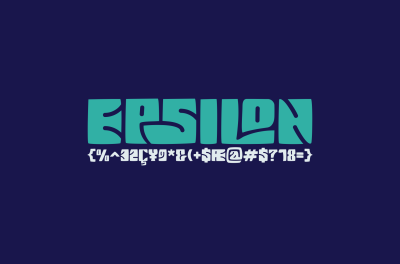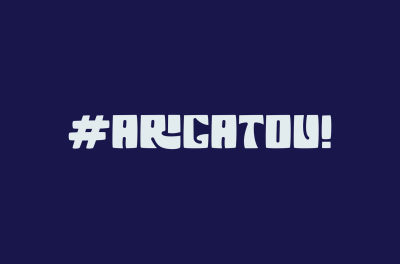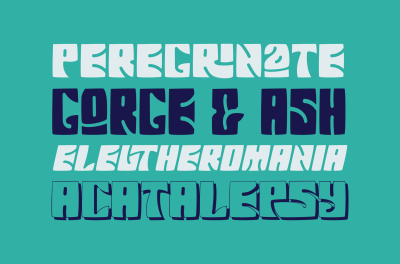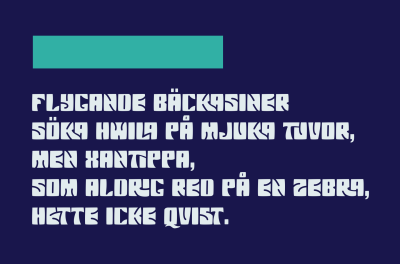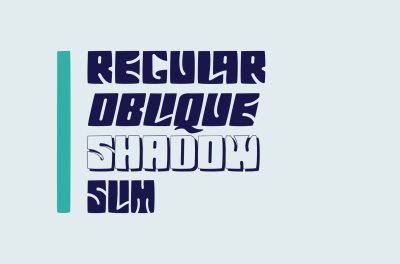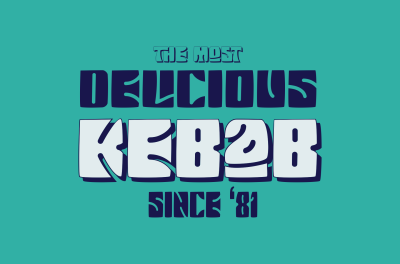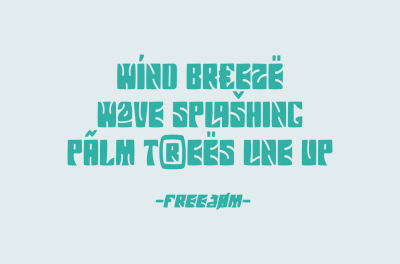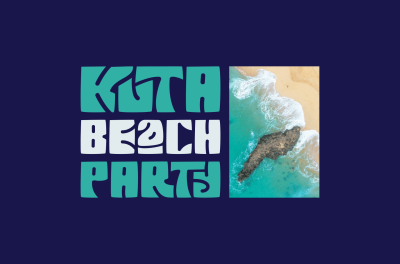
Retro Font Arthos is a striking typeface that combines classic vintage design with a contemporary edge. With bold strokes and smooth curves, it exudes nostalgia while maintaining a modern vibe. Its unique letterforms are full of energy, making it ideal for projects that need personality. The font has a fresh, playful feel without losing its vintage charm. Itโs perfect for projects that need a strong, memorable presence. Whether you’re designing logos, posters, or product branding, Retro Font Arthos ensures your message stands out.
This font is versatile, combining retro elements with a modern twist. Itโs perfect for vintage-themed designs that donโt feel outdated. Retro Font Arthos works well in both large and small sizes, making it ideal for various applications. Its bold structure and readability make it a great choice for many types of projects, from advertising to branding. With this font is, you get a design tool that gives your work timeless appeal and creative flair.
Who Should Use Retro Font Arthos?
This font is perfect for graphic designers who want to create bold, attention-grabbing visuals. Itโs ideal for businesses looking to evoke a sense of nostalgia, particularly in music, fashion, and entertainment. For retro-themed events, clothing lines, or music festivals, this font brings the right vibe. Its bold style ensures it makes an impact on posters, advertisements, and branding materials.
Small business owners can also benefit from Retro Font Arthos. It’s great for businesses targeting younger audiences who appreciate vintage style. Whether you own a cafe, art studio, or boutique, this font can help establish a unique, memorable brand identity. Itโs perfect for logos, product designs, or promotional materials.
This font is also ideal for content creators. Bloggers and social media influencers can use it to make their websites, posts, and video titles stand out. Its bold, playful style appeals to a variety of audiences while staying stylish and professional. It works well for fashion bloggers, lifestyle influencers, or musicians who want to stand out in a crowded digital space.
This font is for anyone looking to add a unique touch to their work. Its combination of vintage charm and modern design makes it versatile for a wide range of creative projects. Whether for branding, marketing, or content creation, Retro Font Arthos adds personality and style to any project.